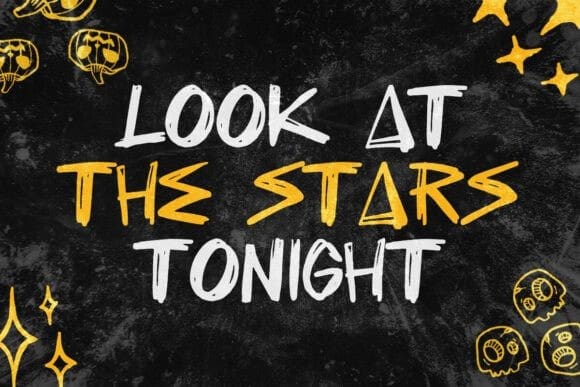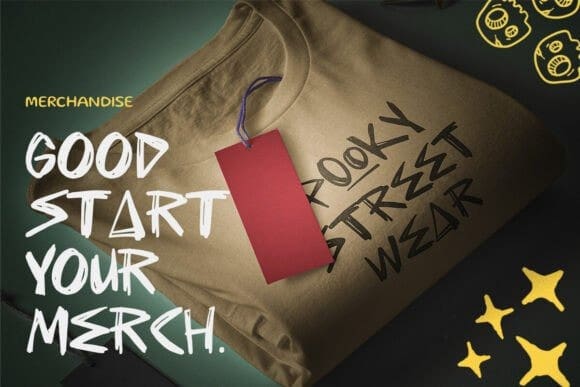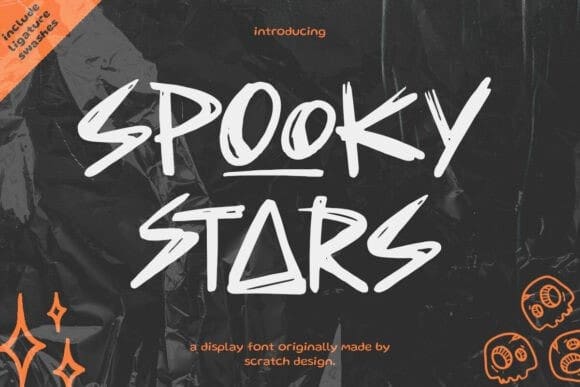
Spooky Stars Font
Spooky Stars Font – This font is inspired by spooky, horror, and scary characters. It has a natural, rough, yet legible handwriting feel. Suitable for use in Halloween-themed designs, band or music events, branding, posters, packaging, labels, invitations, logos, stores, and more.